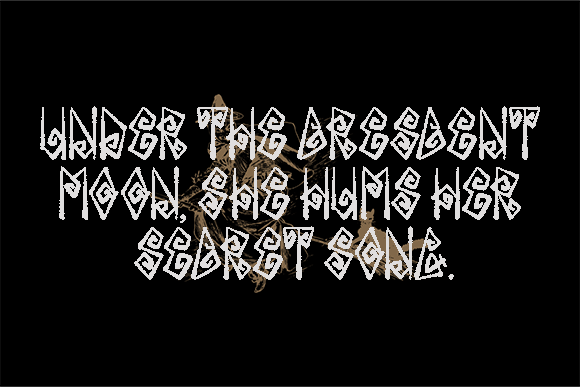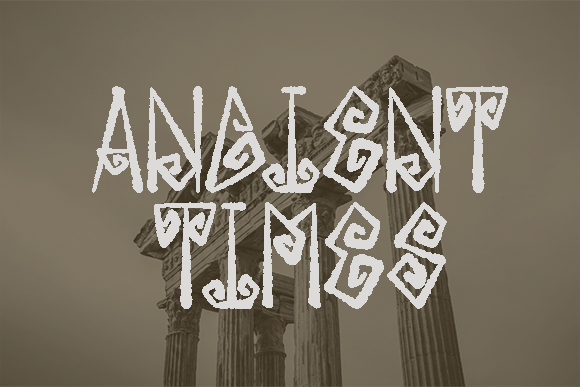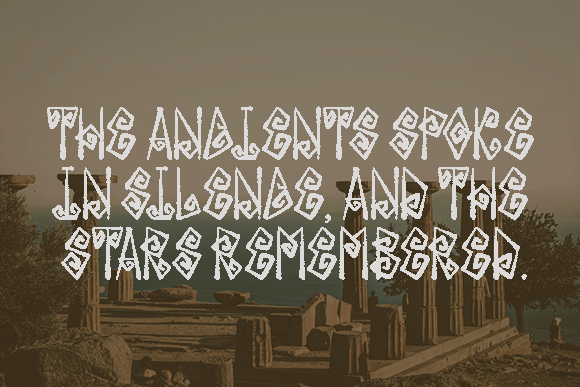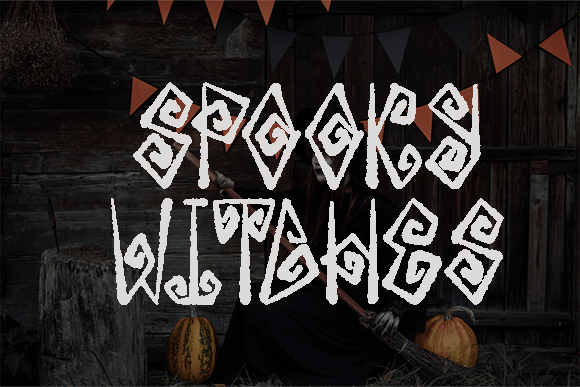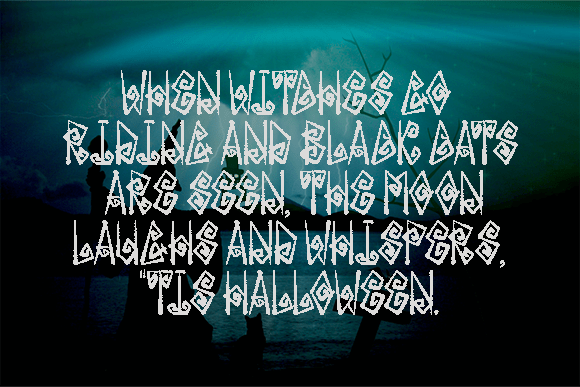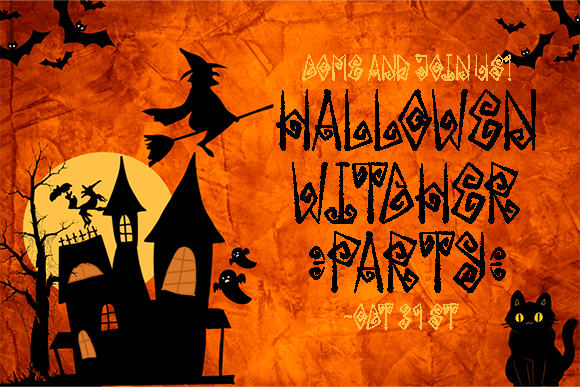
Unleash the Magic of Ancient Witches Font: A Spellbinding Display Font for Halloween and Beyond
As the witching hour approaches, designers and crafters are on the lookout for typography that casts a spell of eerie elegance on their creations. Look no further than the Ancient Witches font, a mesmerizing display font that whisks you away to a realm of mystery and dark enchantment. Inspired by ancient runes, witchcraft symbols, and occult aesthetics, this font is the perfect addition to your Halloween designs, from posters and invitations to t-shirt designs and spooky product packaging.
The Mystique of Ancient Witches Font
Each letter in the Ancient Witches font is carefully crafted with a mystical twist, combining spiral strokes, geometric carvings, and occult aesthetics to create a hauntingly elegant typography. The font’s design is rooted in the mystique of ancient witchcraft, evoking the secrets and forgotten tales of a bygone era. Whether you’re conjuring up a Halloween poster, a witchy invitation, or a dark fantasy brand, this font will add a touch of magic to your words.
The Ancient Witches font is incredibly versatile, making it suitable for a wide range of design projects, including:
• Halloween posters and flyers that demand attention
• Witchy invitations that set the tone for a spooktacular celebration
• Dark fantasy branding that transports your audience to a world of wonder
• Horror titles that send shivers down the spine
• T-shirt designs that make a bold statement
• Spooky product packaging that stands out on store shelves
Why Choose Ancient Witches Font?
So, what sets Ancient Witches font apart from other display fonts? Here are just a few reasons why designers and crafters love this font:
• Unique and eye-catching design: The Ancient Witches font boasts a distinctive design that will make your creations stand out from the crowd.
• Elegant and haunting typography: This font combines elegance and eeriness, making it perfect for a variety of design projects.
• Versatile: From Halloween designs to dark fantasy branding, this font is suitable for a wide range of projects.
Tips for Using Ancient Witches Font
To get the most out of the Ancient Witches font, here are a few design tips to keep in mind:
• Experiment with font sizes: The Ancient Witches font looks stunning in large display sizes, but it can also be effective in smaller sizes for added texture and interest.
• Play with color: Rich, bold colors can enhance the mystical feel of the font, while pastel colors can create a more whimsical look.
• Combine with other fonts: Pair the Ancient Witches font with a sans-serif font for a striking contrast.
The Ancient Witches font is a spellbinding display font that will add a touch of magic to your designs. With its unique and eye-catching design, elegant and haunting typography, and ease of use, this font is perfect for designers and crafters looking to create stunning Halloween and dark fantasy designs. So why wait? Unleash the magic of Ancient Witches font and let your typography whisper ancient spells and forgotten tales.